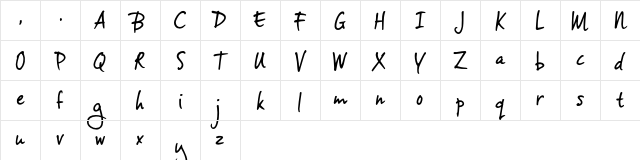
vinceHand II TRIAL Regular
Foundry: JOEBOB graphics - JJW van der Ham
Designer: JOEBOB graphics - JJW van der Ham - Vince Haenen
Design Context for vinceHand II TRIAL
vinceHand II TRIAL flows with the natural rhythm of handwritten lettering, making it ideal for designs that call for warmth and personal expression.
Font Pairing: Combine vinceHand II TRIAL with a simple geometric sans for maximum contrast - the tension between flowing curves and clean structure is a classic typographic pairing.
Pro Tip: Use vinceHand II TRIAL for short runs of text - names, titles, or taglines. Extended body copy in script faces tires the eye quickly.